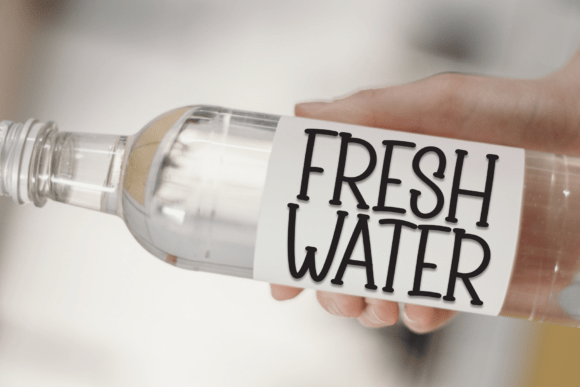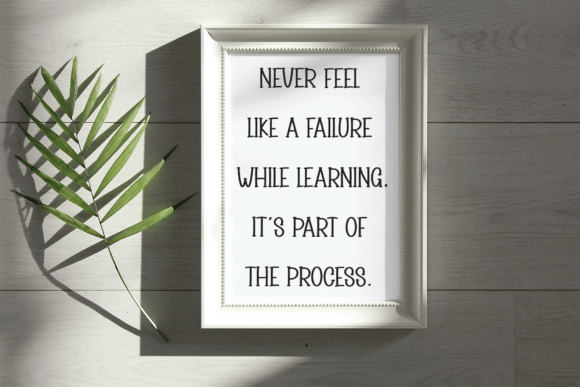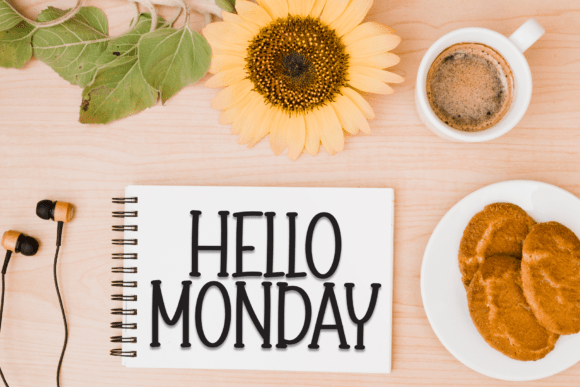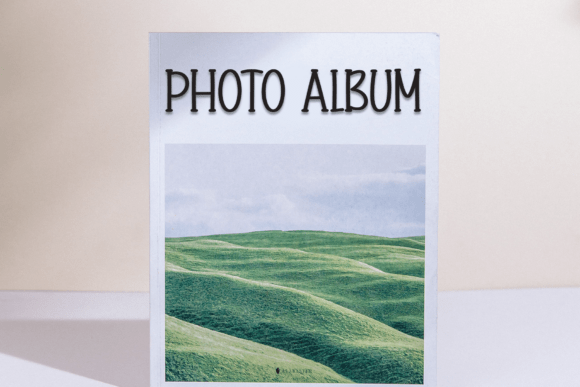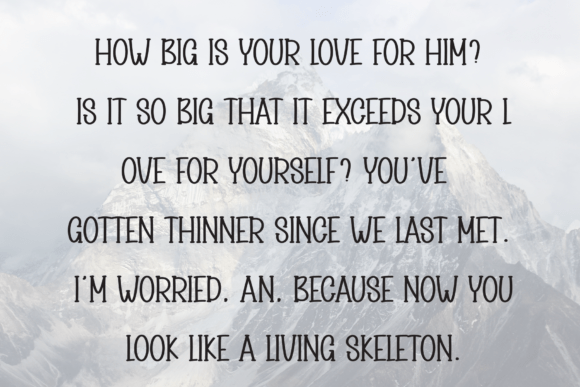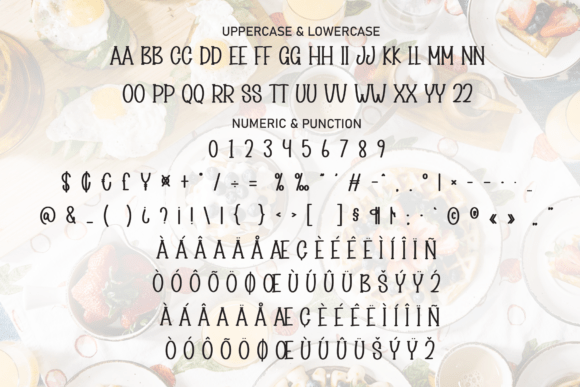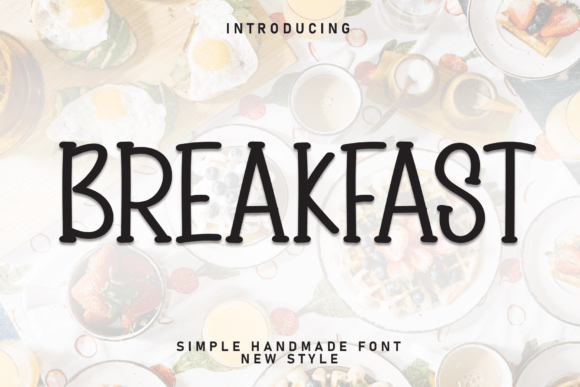
Introducing Breakfast Font: The Perfect Blend of Freshness and Friendliness
Are you tired of using the same old fonts for your design projects? Look no further than Breakfast Font, a casual and neat display font that’s sure to add a fresh and friendly vibe to your work. With its clean lines and relaxed structure, Breakfast Font is perfect for a variety of applications, from packaging and posters to social media graphics and more.
A Fresh and Friendly Approach
Breakfast Font is designed to be approachable and charming, making it perfect for designers and crafters who want to add a personal touch to their projects. The font’s clean lines and relaxed structure give it a polished appearance that’s both modern and timeless. Whether you’re working on a packaging design, poster, or social media graphic, Breakfast Font is sure to add a touch of warmth and friendliness to your work.
Key Features of Breakfast Font
- Clean Lines: Breakfast Font features clean lines that give it a crisp and modern appearance.
- Relaxed Structure: The font’s relaxed structure adds a touch of friendliness and approachability to your designs.
- Polished Appearance: Despite its casual nature, Breakfast Font maintains a polished appearance that’s perfect for a variety of applications.
- Versatile: Breakfast Font is perfect for a range of design projects, from packaging and posters to social media graphics and more.
Breakfast Font is a versatile font that’s perfect for designers and crafters who want to add a personal touch to their projects. Whether you’re working on a commercial design project or a personal craft project, Breakfast Font is sure to add a touch of charm and clarity to your work. The font’s approachable design makes it perfect for a variety of applications, including:
Packaging Design
Breakfast Font is perfect for packaging design, adding a fresh and friendly vibe to your product labels and packaging materials. The font’s clean lines and relaxed structure make it easy to read and understand, even at small sizes.
Poster Design
Breakfast Font is also perfect for poster design, adding a touch of charm and clarity to your posters and flyers. The font’s polished appearance makes it perfect for a variety of applications, from advertising and marketing to event promotion and more.
Social Media Graphics
Breakfast Font is perfect for social media graphics, adding a fresh and friendly vibe to your social media posts and graphics. The font’s approachable design makes it perfect for a variety of applications, from Facebook and Twitter to Instagram and more.
Why Choose Breakfast Font?
There are many reasons to choose Breakfast Font for your design projects. Here are just a few:
- Unique and Eye-Catching: Breakfast Font is a unique and eye-catching font that’s sure to add a touch of personality to your designs.
- Easy to Read: The font’s clean lines and relaxed structure make it easy to read and understand, even at small sizes.
- Versatile: Breakfast Font is perfect for a range of design projects, from packaging and posters to social media graphics and more.
- High-Quality: Breakfast Font is a high-quality font that’s designed to deliver exceptional results.
In conclusion, Breakfast Font is a casual and neat display font that’s perfect for designers and crafters who want to add a fresh and friendly vibe to their projects. With its clean lines, relaxed structure, and polished appearance, Breakfast Font is perfect for a variety of applications, from packaging and posters to social media graphics and more. So why wait? Download Breakfast Font today and start adding a touch of charm and clarity to your designs!